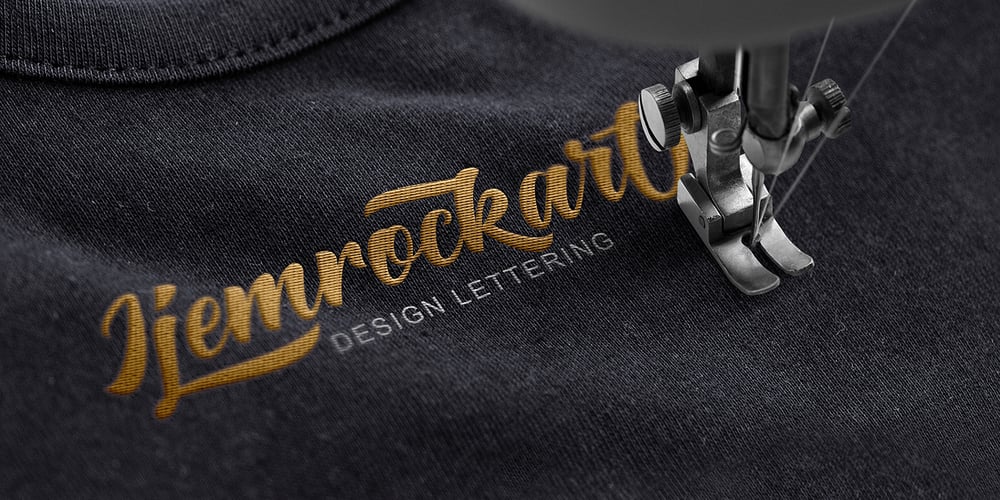
Big Blue Script
Big Blue Script font
Big Blue Script Font Family was designed by Ferdiansyah and published by ijemrockart. Big Blue Script contains 2 styles and family package options. Big Blue Font is a hand brushed typeface, with authentic Clean and Rough imperfections, and a very bouncy baseline It has a perfectly paired complimentary marker font, and a super handy set of bonus Swash. Ideal for logos, handwritten quotes, product packaging, header, poster, merchandise, social media & greeting cards. To enable the OpenType Stylistic alternates, you need a program that supports OpenType features such as Adobe Illustrator CS, Adobe Indesign & CorelDraw X6-X7. There are additional ways to access alternates, using Character Map (Windows), Nexus Font (Windows), Font Book (Mac) or a software program such as PopChar (for Windows and Mac). If you have any question, don’t hesitate to contact me by email ijemrealmad54@gmail.com